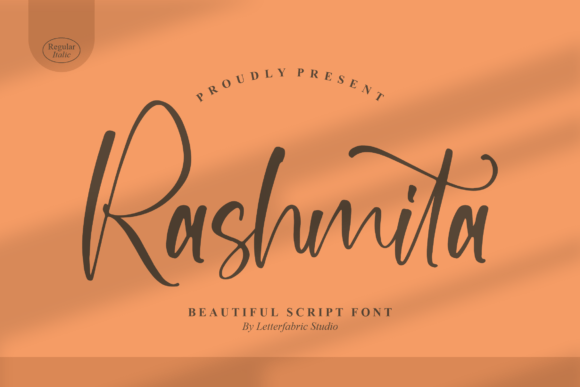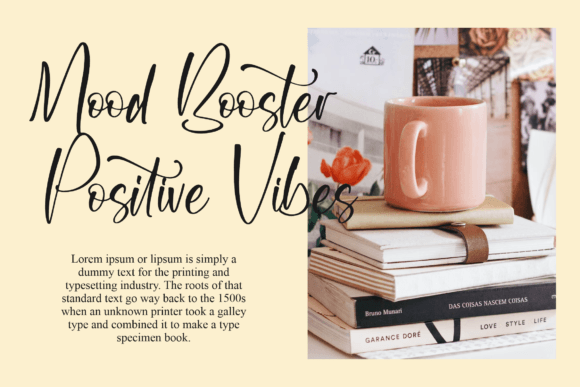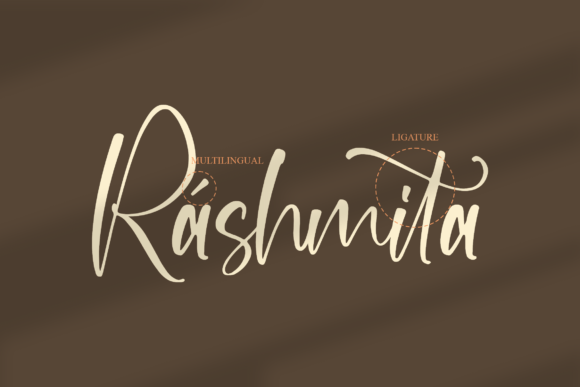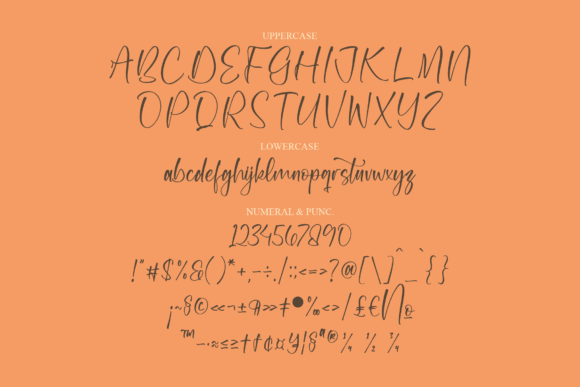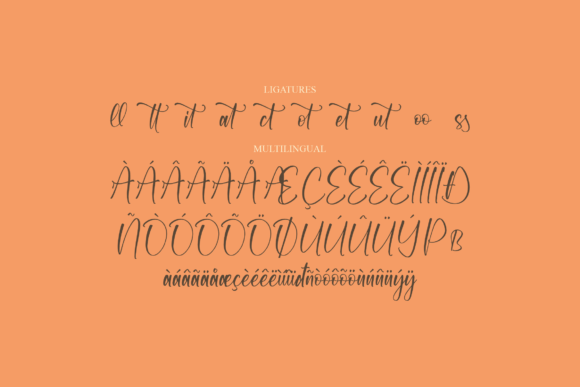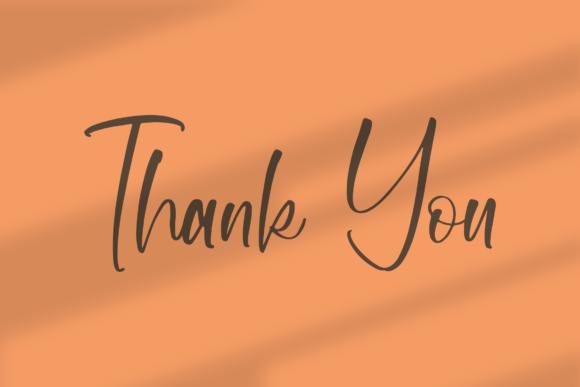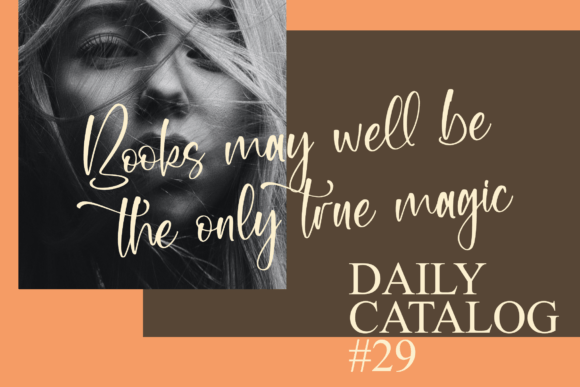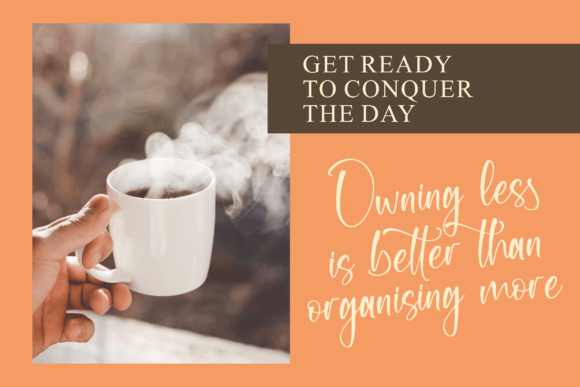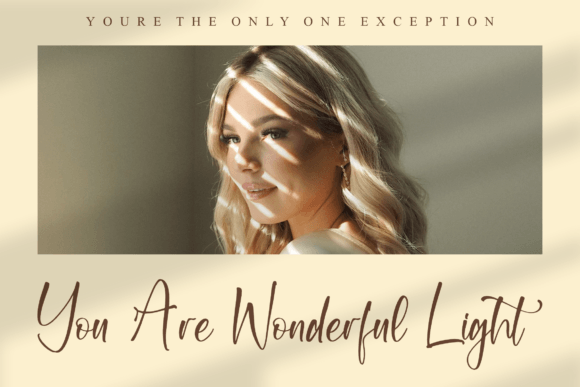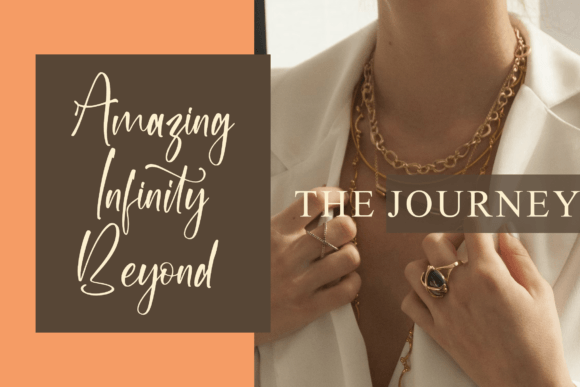
Rashmita Font
About Rashmita Font
**Rashmita: A Charming and Elegant Handwritten Script Font**
Introducing Rashmita, a charming and elegant handwritten script font that radiates daintiness and joy. This font is an ideal choice for adding a touch of romance and personalization to your creative projects, whether you’re designing wedding invitations, cards, or any other piece that deserves a romantic and heartfelt touch.
Rashmita’s primary allure lies in its charm and elegance. The handwritten script characters are meticulously crafted to exude a sense of sophistication and authenticity. The font’s dainty and joyful letters bring a personalized and romantic touch to your designs, making it perfect for projects where you want to create a memorable and heartfelt impression.
The versatility of Rashmita makes it a valuable asset for various design occasions. It’s a wonderful choice for crafting elegant wedding invitations that convey the love and uniqueness of the couple. It’s equally suitable for creating heartfelt cards that express your warm wishes and emotions. Rashmita’s beauty and readability ensure that your message is not just conveyed effectively but also with a touch of personalized elegance.
In summary, Rashmita is more than just a font; it’s a source of charm and elegance that enhances your design projects. Its dainty and joyful script letters make it the perfect choice for infusing romance and personalization into your work. With Rashmita, your creative projects will exude sophistication and heartfelt emotion. Choose Rashmita, and let your designs shine with its elegant and charming touch.